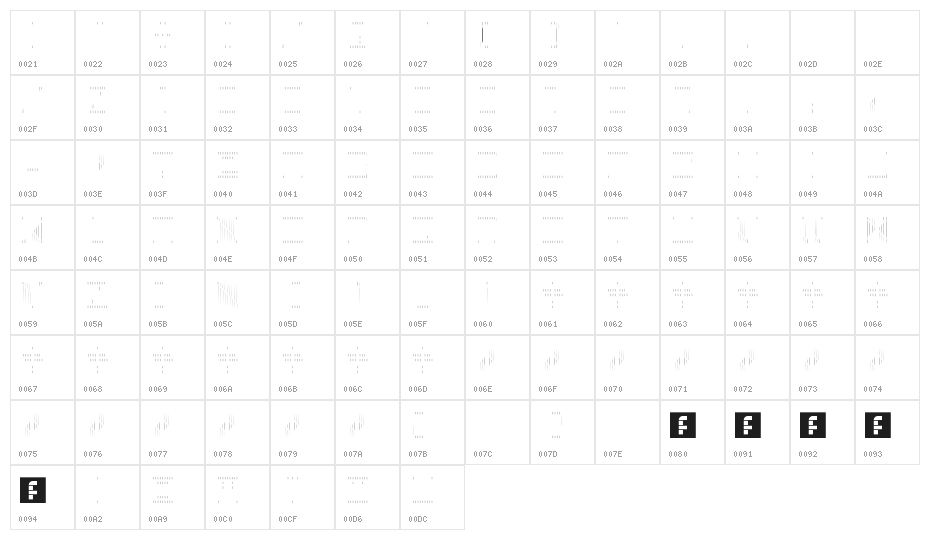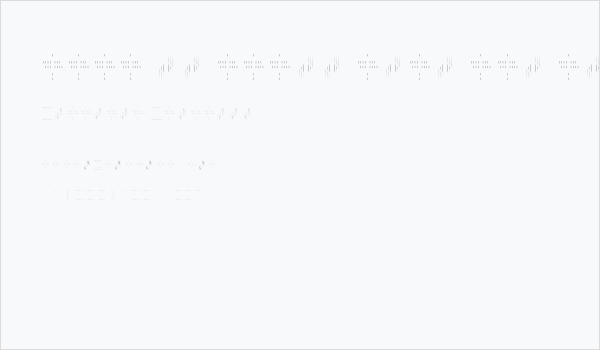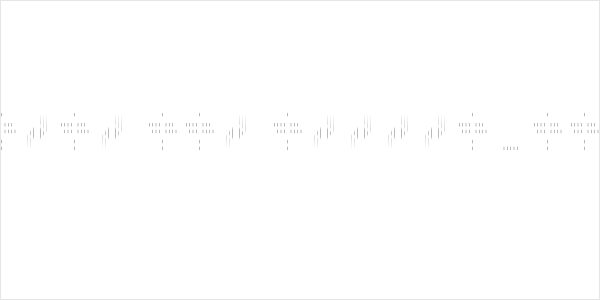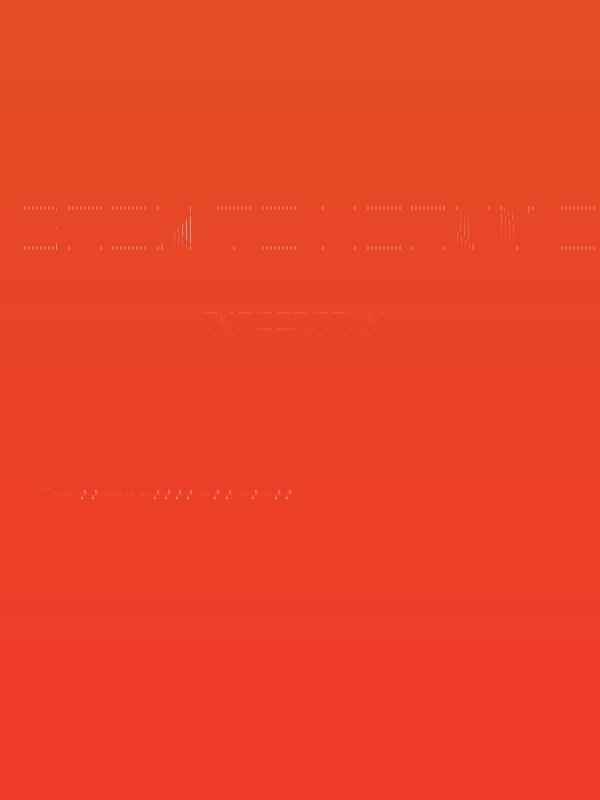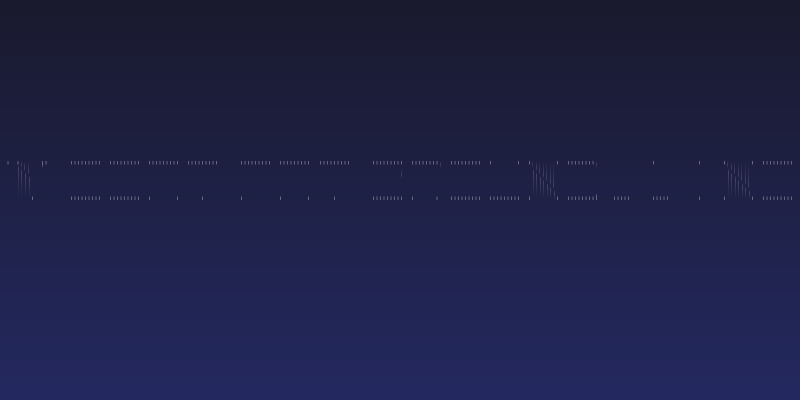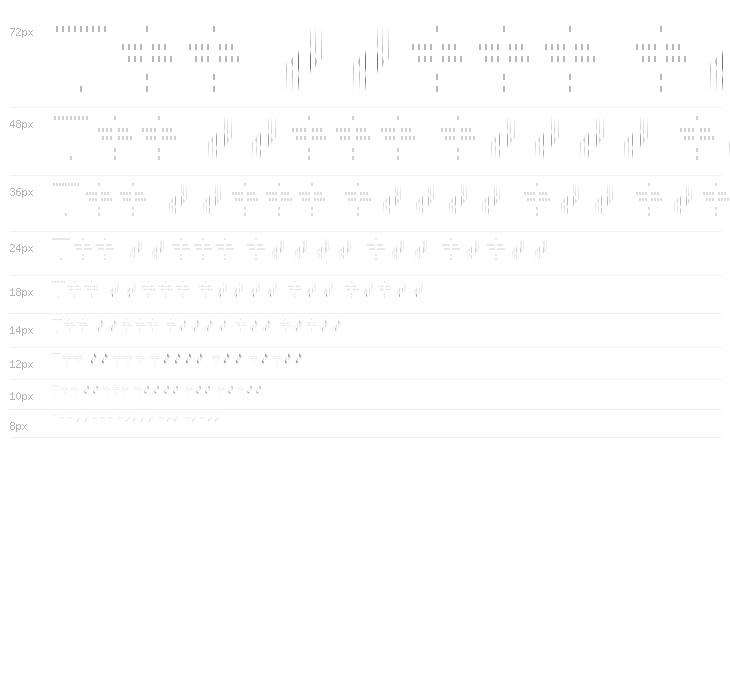
back to heavy coat fat ground_line-sv Regular Description
This font features a unique design where each character is constructed from a series of vertical lines, creating a barcode-like appearance. The characters are monospaced, ensuring uniformity in width, which contributes to a highly structured and mechanical aesthetic. The uppercase and lowercase letters maintain consistent height and width, while the numbers and special characters follow the same linear pattern. This font's distinct style makes it stand out, offering a modern and futuristic feel. The vertical lines are evenly spaced, providing a clean and organized look, which is both eye-catching and functional.
| Use Case | Logos, Headlines, Digital Art |
| Proposed Projects | Ideal for tech-themed designs, futuristic branding, digital art projects, and unique poster designs. |